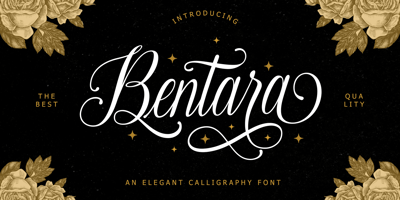
Bentara Script Font Family was designed by Rinaldi Novianda and published by Alpha Bento. Bentara Script contains 2 styles and family package options. Bentara Script is a calligraphy font that comes with beautiful alternative characters. Calligraphy of copper plate with handlettering style. Designed to convey stylish elegance. Bentara Script attracts like a typeface that is soft and luxurious, clean, feminine, sensual, glamorous, simple and very easy to read. Its classic style is very suitable to be applied to all kinds of formal items such as invitations, labels, menus, Logos, fashion, make up, stationery, letterpress, romantic novels, magazines, books, greeting / wedding cards, packaging, labels.Bentara Script including multiple language support. With OpenType features with stylistic alternates, ligatures and swash characters, that allows you to mix and match pairs of letters to fit your designTo enable the OpenType Stylistic alternates, you need a program that supports OpenType features such as Adobe Illustrator CS, Adobe Indesign & CorelDraw X6-X7, Microsoft Word 2010 or later versions. (Windows), Font Book (Mac) or a software program such as PopChar (for Windows and Mac).If you need help or advice, please contact me by e-mail: alphabento.16@gmail.comThank you,Alpha Bento